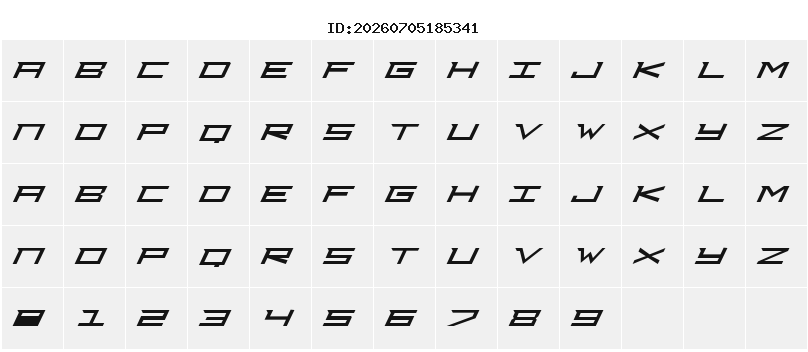
Dj Courageous Preview
• Font Name: Dj Courageous
• Full Font Name: Dj Courageous
About Dj Courageous.ttf
Dj Courageous.ttf is a modern, elegant sans-serif font designed for ultimate readability and visual harmony. Perfect for branding, headlines, web design, and print materials.